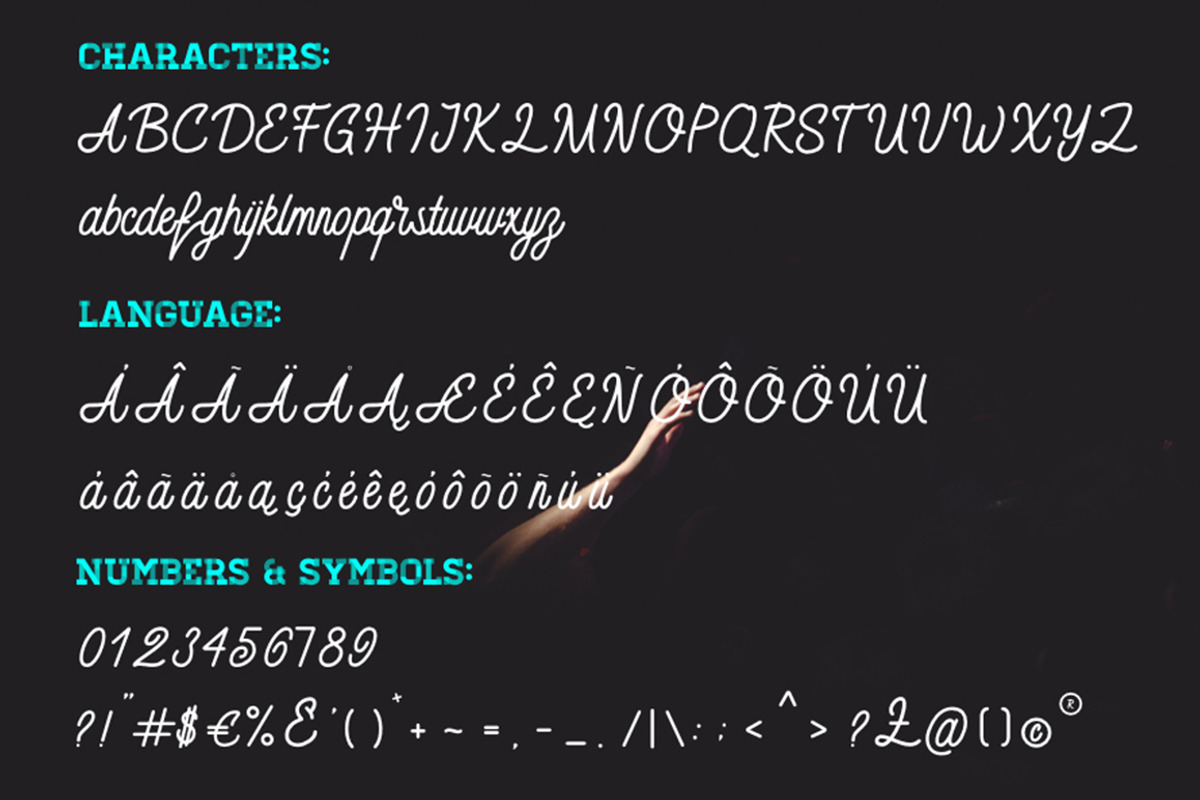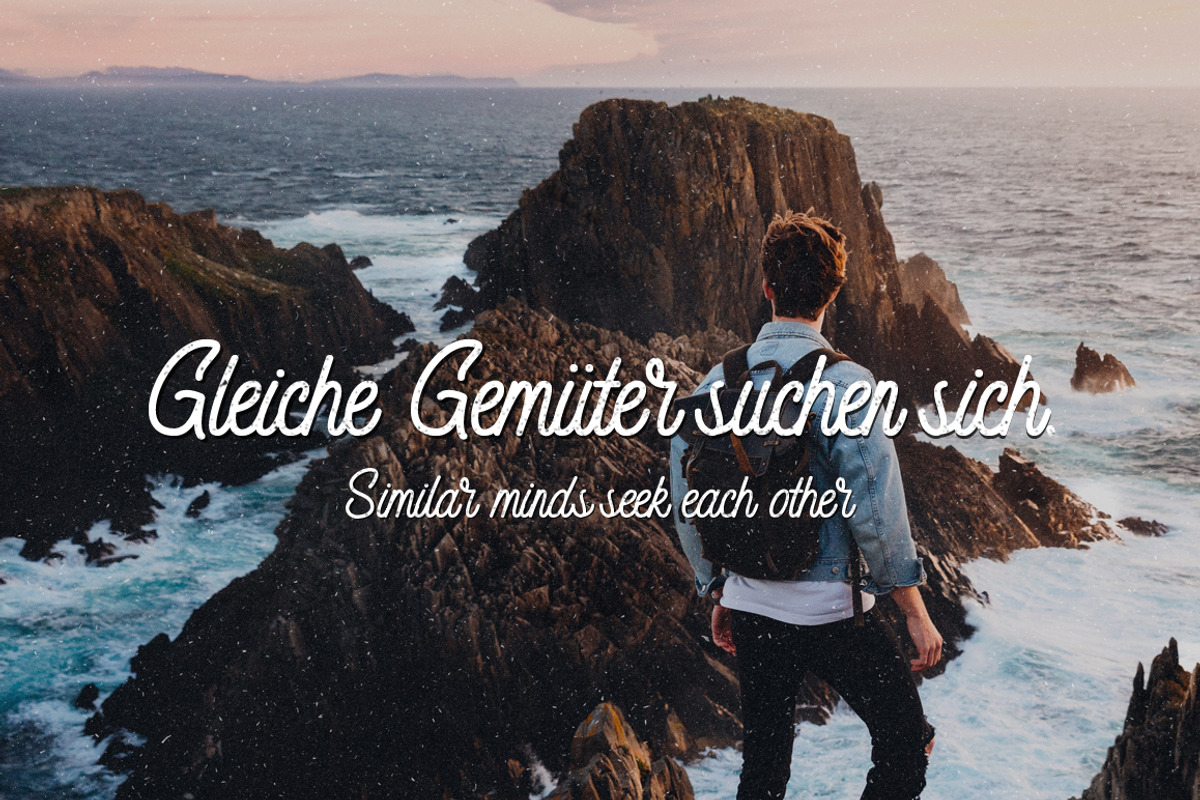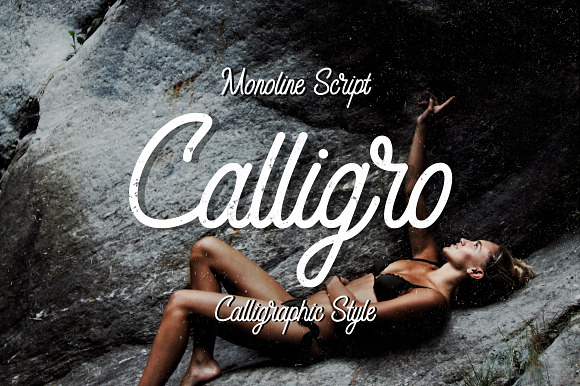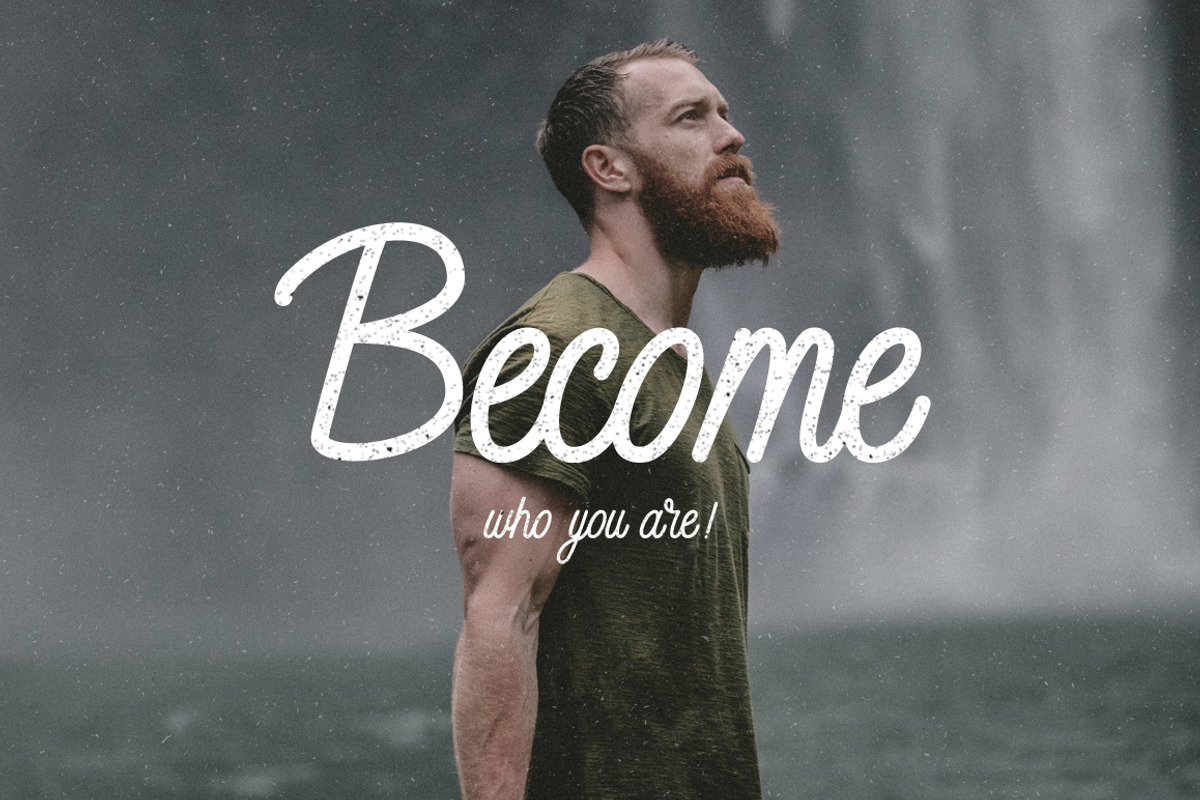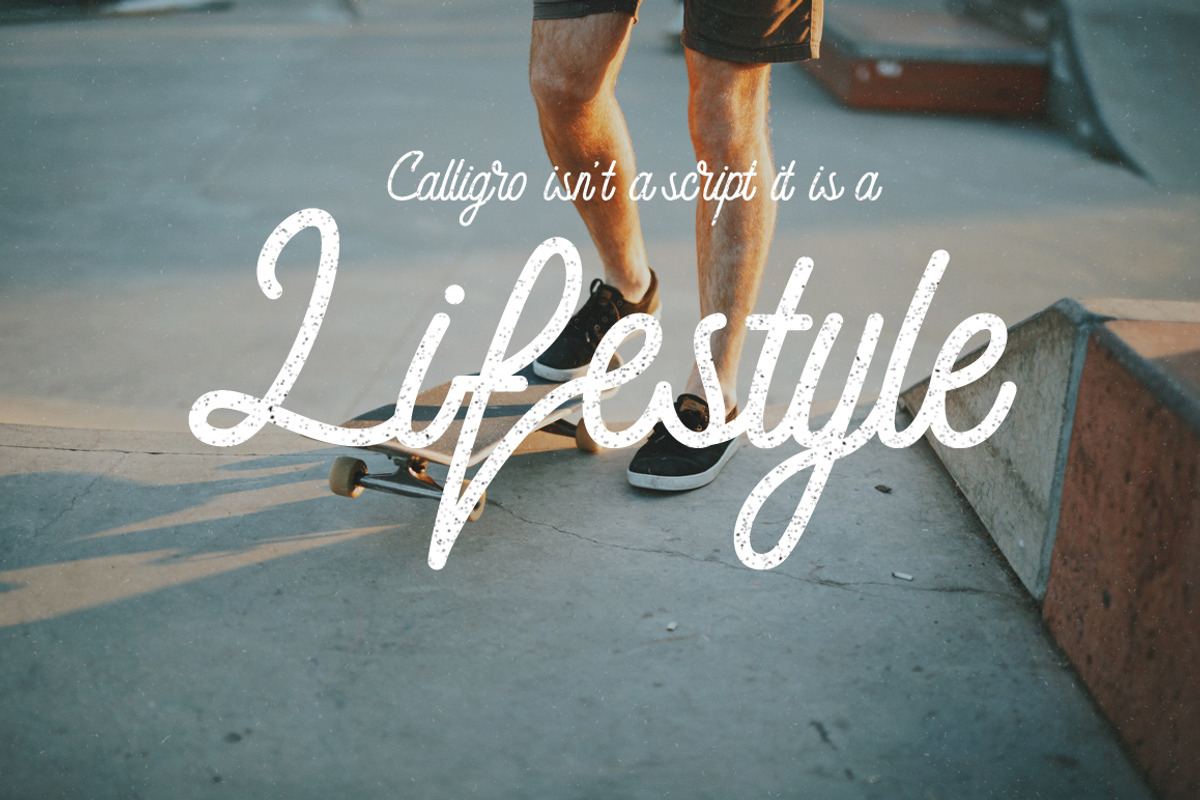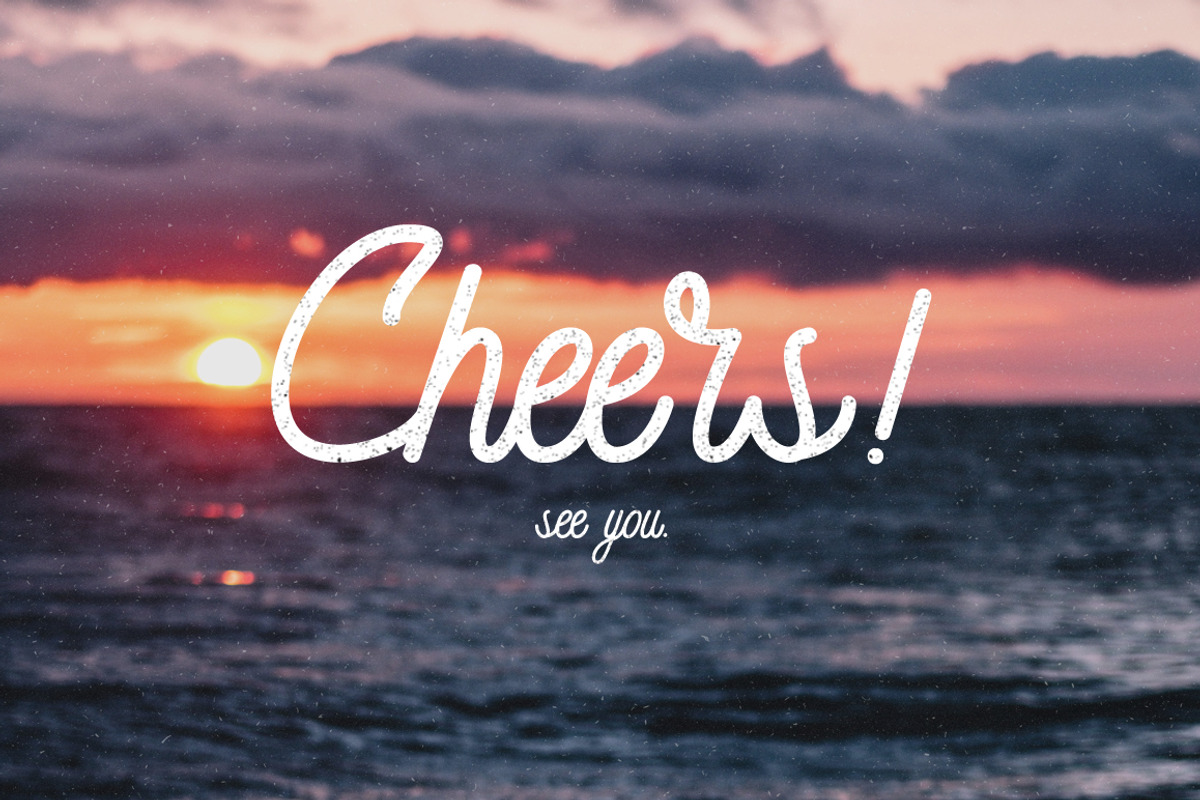
Calligo Monoline Font
💢 Handwritten Monoline Script - CALLIGRO! 💢
👉🏻 This handwritten font is best friend of travel filmmakers and photographers, graphic designer and lettering artists
The font is great for cover design, videos, logo and poster design! It is also perfect for type designers since script provides original letter forms!
Supports other languages
Calligo Monoline Font by n.A Studio fits naturally into Branding, posters, packaging, typography.